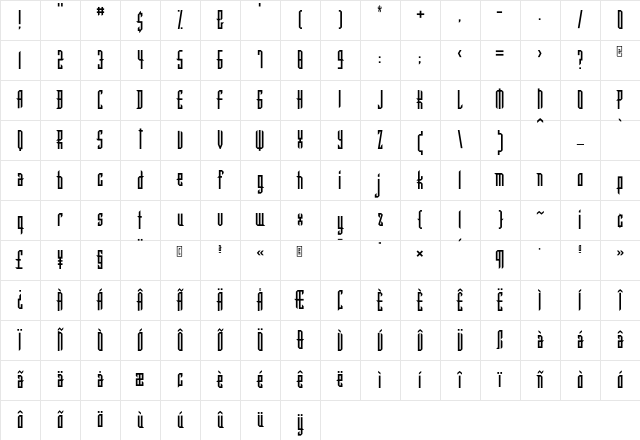
Dog Regular
Design Context for Dog
Dog is a composed and adaptable typeface that performs quietly and consistently across a wide range of design contexts.